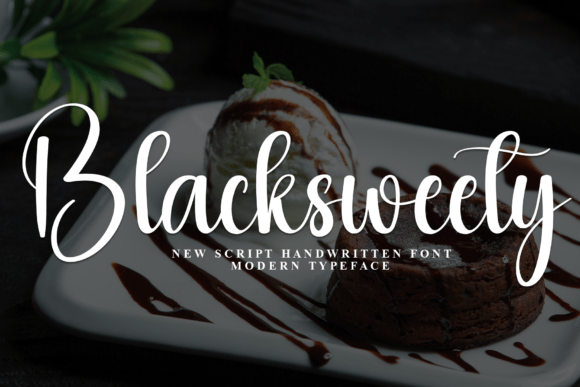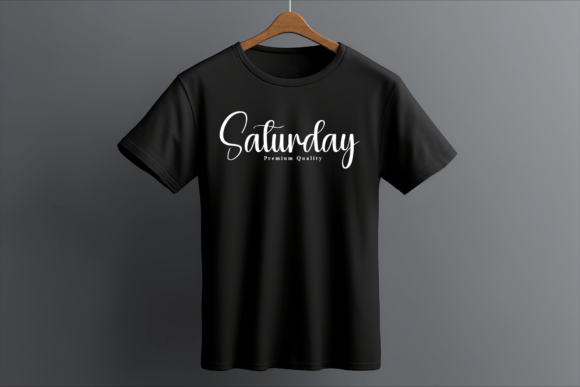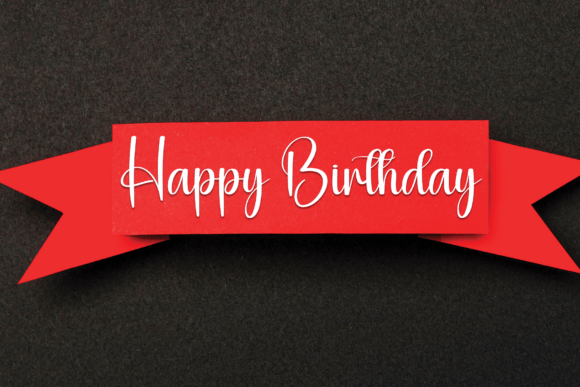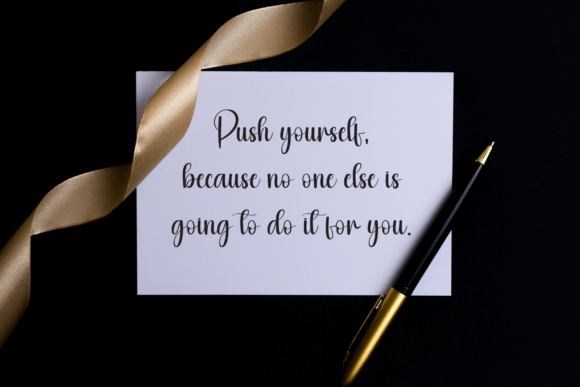
Blacksweety Font: A Cute & Modern Display Font for Cricut
About the Blacksweety Font
The Blacksweety Font offers a perfect balance of form and function for your design needs. special creative products for you, our products will give you an extraordinary experience.
the latest style letters are perfect for wall displays, wedding invitations, social media post logos,
advertisements, product packaging, product designs, labels, photography, watermarks, invitations, stationery,
and any project that requires taste handwriting.
Blacksweety Font Usage Examples
Blacksweety Font Example